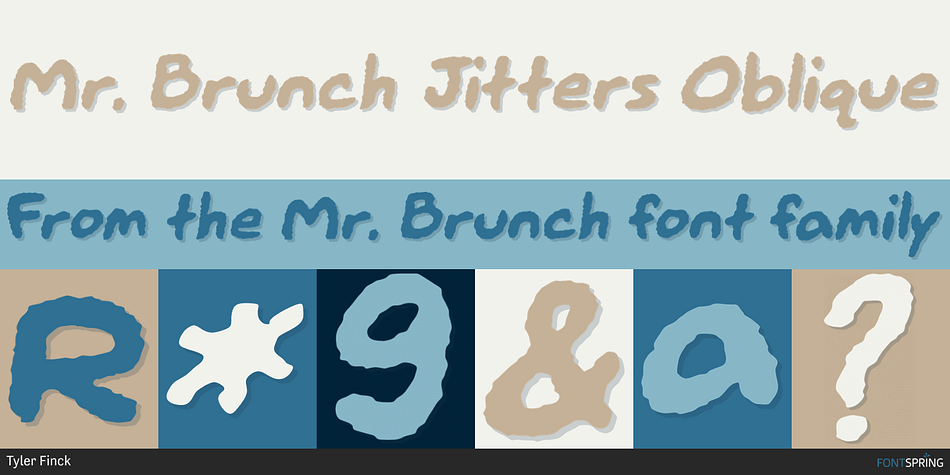
Designed by Tyler Finck, Mr. Brunch is a comic and hand drawn font family. This typeface has twelve styles and was published by Tyler Finck.
Mr. Brunch Jitters Oblique
Mr. Brunch is flexible and perfect when a personal tone is needed, lightening the mood with a variety of styles. It’s handmade look keeps things natural but the crisp, clean forms allow Mr. Brunch to work at any size with any amount of text.